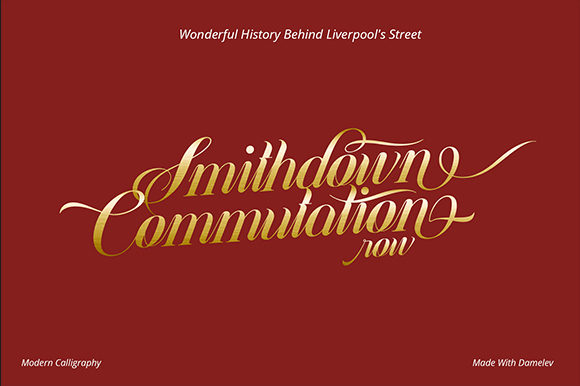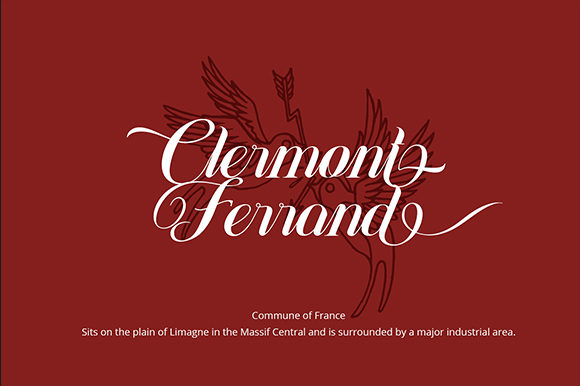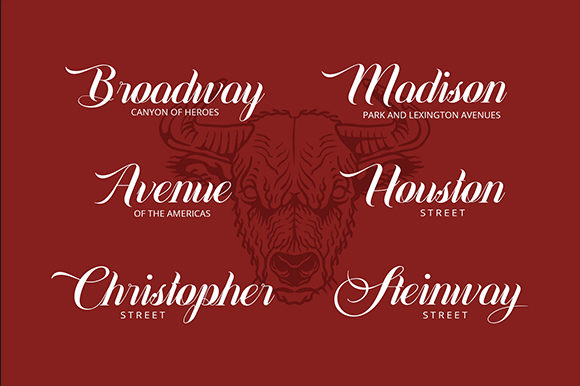
Introduction to Alqaisumah Font
Alqaisumah feels equally charming and elegant.
It looks stunning on wedding invitations, thank you cards, quotes, greeting cards, logos, business cards and every other design which needs a handwritten touch This font is PUA encoded which means you can access all of the glyphs and swashes with ease.